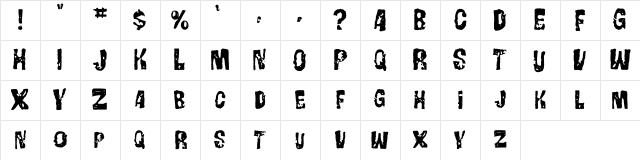
Gorgo Regular
Foundry: Dreadful Productions
Design Context for Gorgo
Gorgo is a composed and adaptable typeface that performs quietly and consistently across a wide range of design contexts.